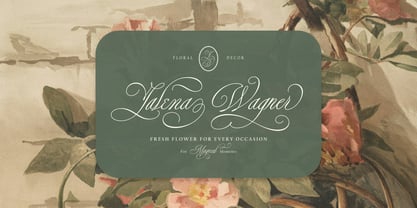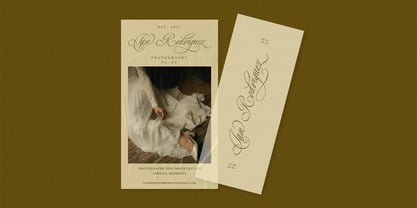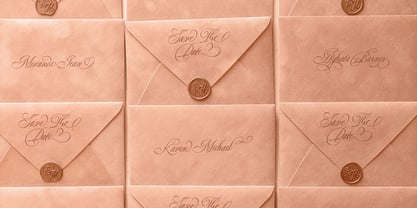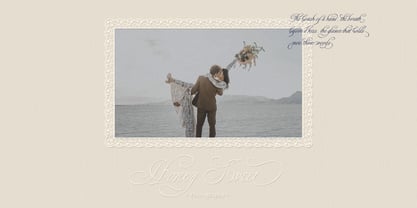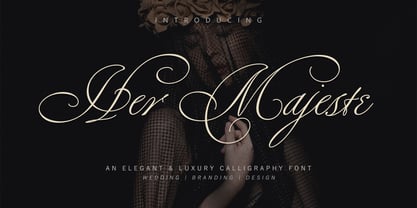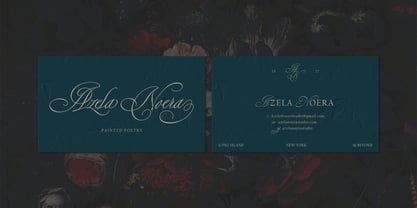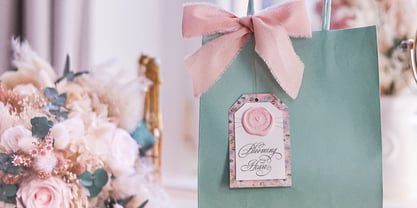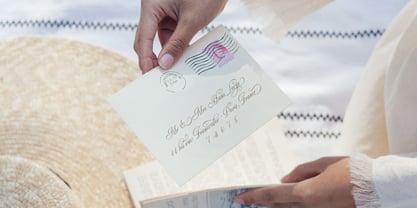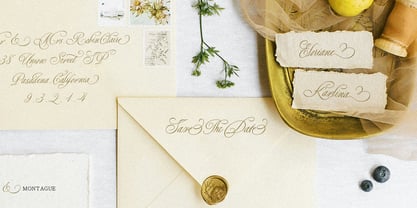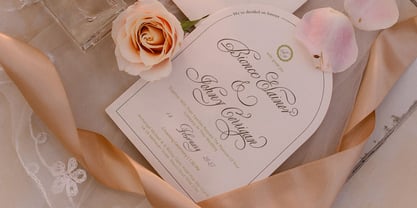
Her Majeste
Her Majeste is a beautiful Handwritten script font that is suitable for branding, wedding invitations, greeting cards, posters, name card, quotes, blog header, logo, fashion, letter, stationery and other projects.
Come with Uppercase (two style) & Lowercase, International Language, Symbols Support Punctuation & Numeral, Alternates Stylistic Set 1-16 Character Variant Contextual. And this Font has given PUA Unicode. so that all the alternate characters can easily be accessed in full by a craftsman or designer.
Her Majeste